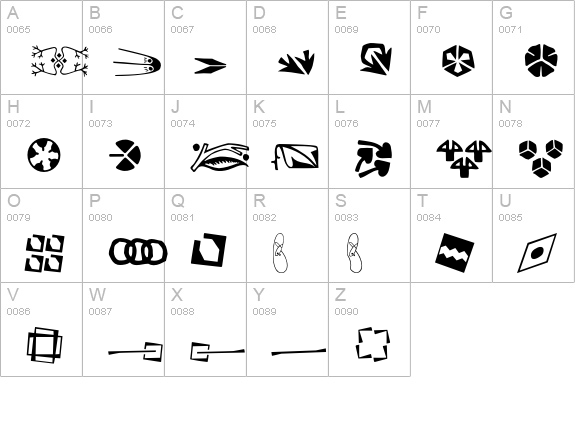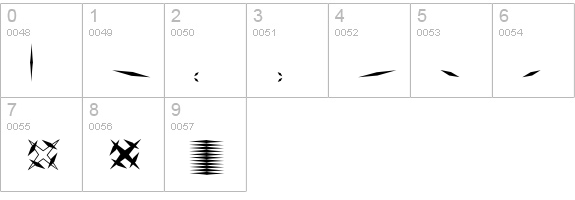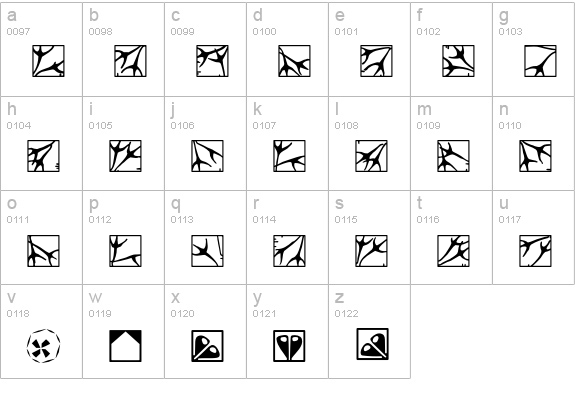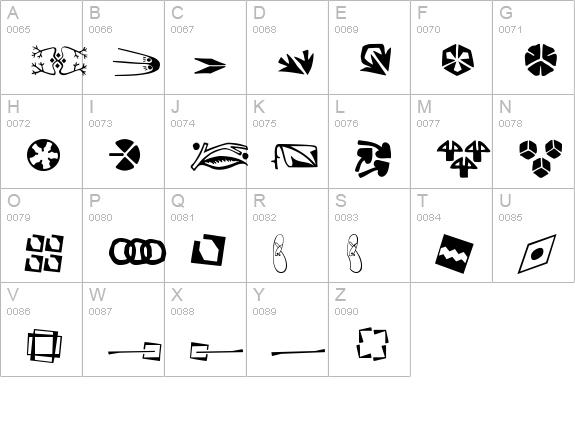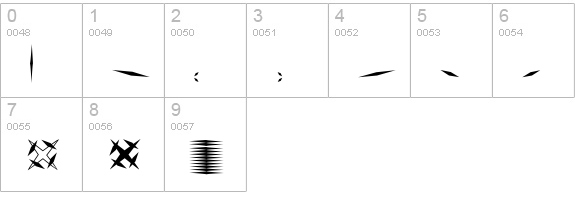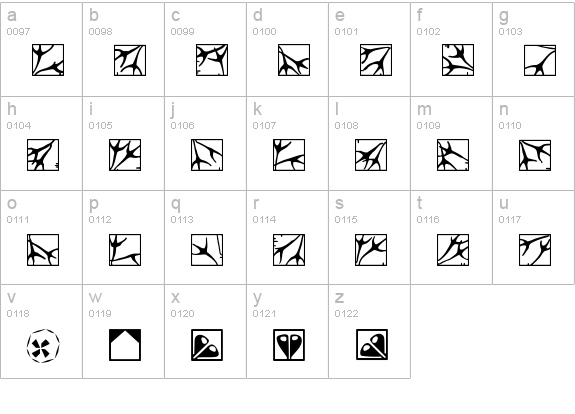
P22Preissig-Extras Font Details
P22Preissig-Extras font is a remarkable typeface that exudes a sense of timeless elegance and artistic flair. With its intricate and meticulously crafted letterforms, this font captures the essence of traditional craftsmanship while offering a contemporary twist. Featuring a wide range of extras and ornaments, P22Preissig-Extras font allows you to add a touch of sophistication and creativity to your designs. Whether you're working on a logo, branding materials, or any other project that requires a touch of uniqueness, this font has got you covered. What's even better is that P22Preissig-Extras font is freely available to download at FontsMarket.com. This means that you can effortlessly enhance your designs without any cost, making it an ideal choice for both personal and commercial projects. Download P22Preissig-Extras font today and unlock a world of possibilities. Let your creativity soar and create stunning designs that leave a lasting impression.